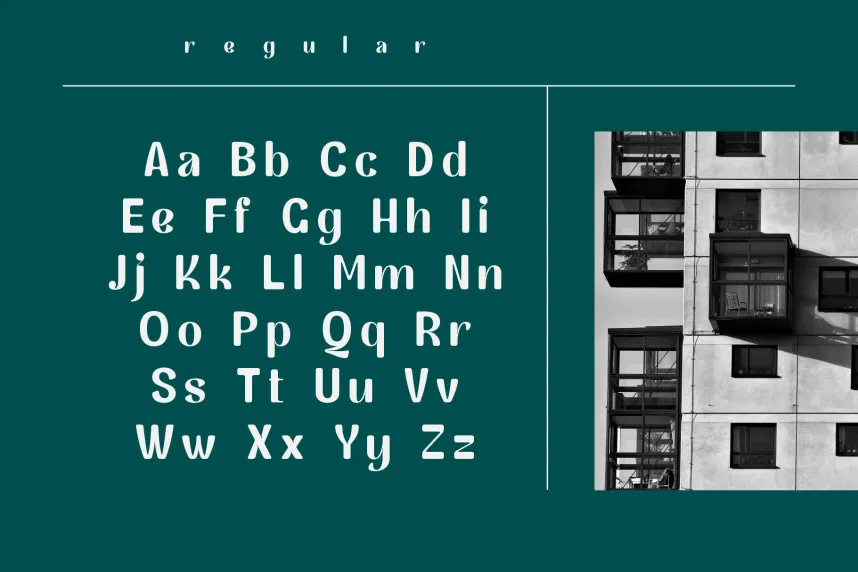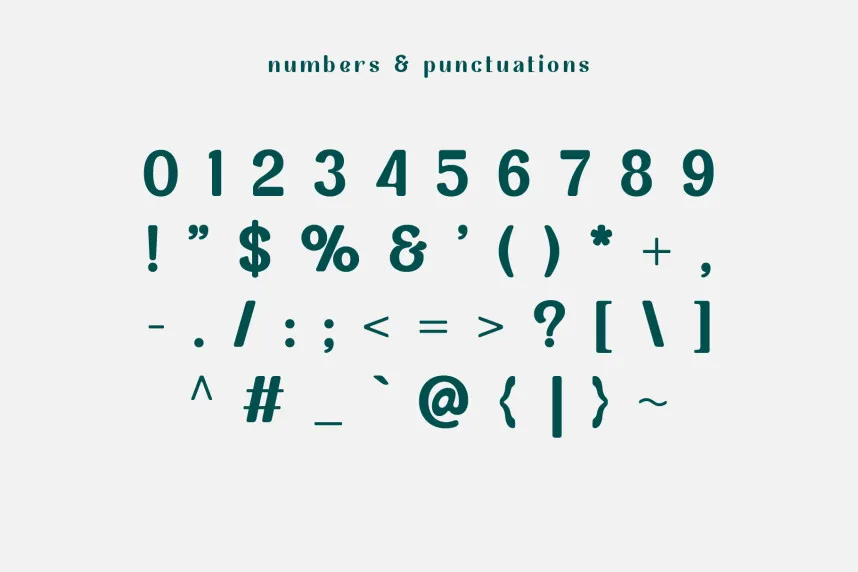
Pastisi Font is playful, warm, and creative, filled with a touch of friendly charm. It features soft curves and rounded letters that make text feel cheerful and inviting.
This font works wonderfully for bakeries, cafes, children’s brands, and lifestyle designs. It adds sweetness and positivity to every visual.
Each letter carries a handcrafted touch that makes the font look personal and artistic. It feels casual yet beautifully structured.
It can easily turn simple layouts into something joyful and bright. It communicates fun without losing readability.
Pastisi Font Family
Designers love how easily it pairs with soft colors and cute illustrations. It’s the kind of typeface that spreads happiness.
Name Pastisi Font
Type Playful Handwritten
Designer Luthfi Ardi Studio
Usage Perfect for product labels, children’s books, and posters
This font brings joy, comfort, and friendliness wherever it’s used, a true choice for playful, welcoming, and human-centered design.